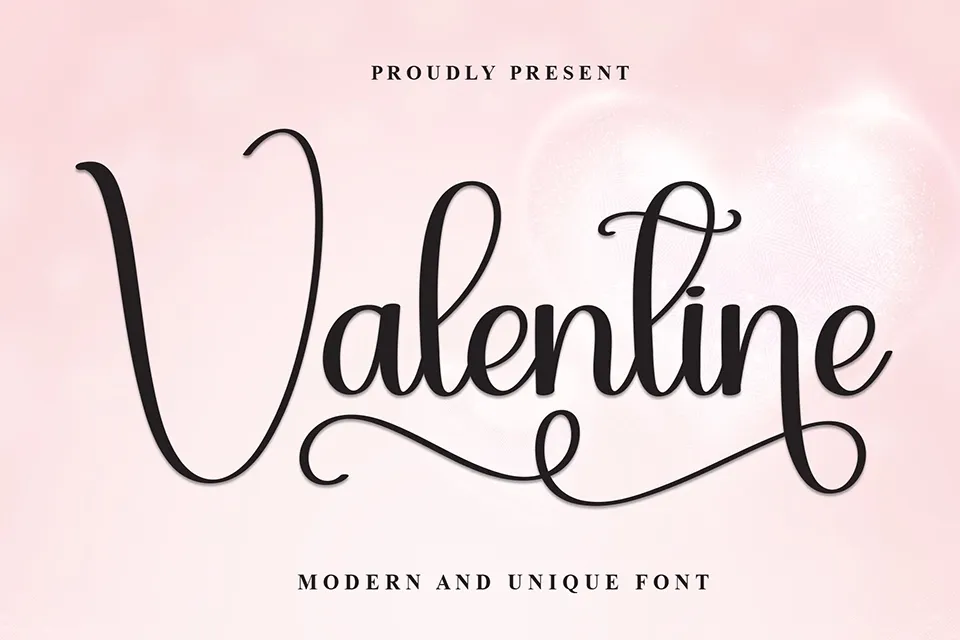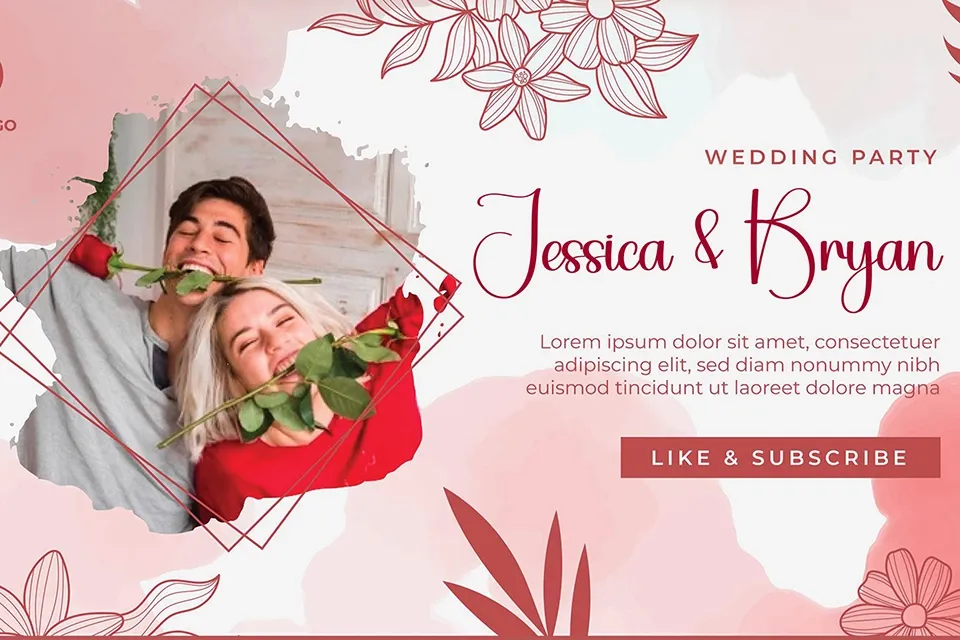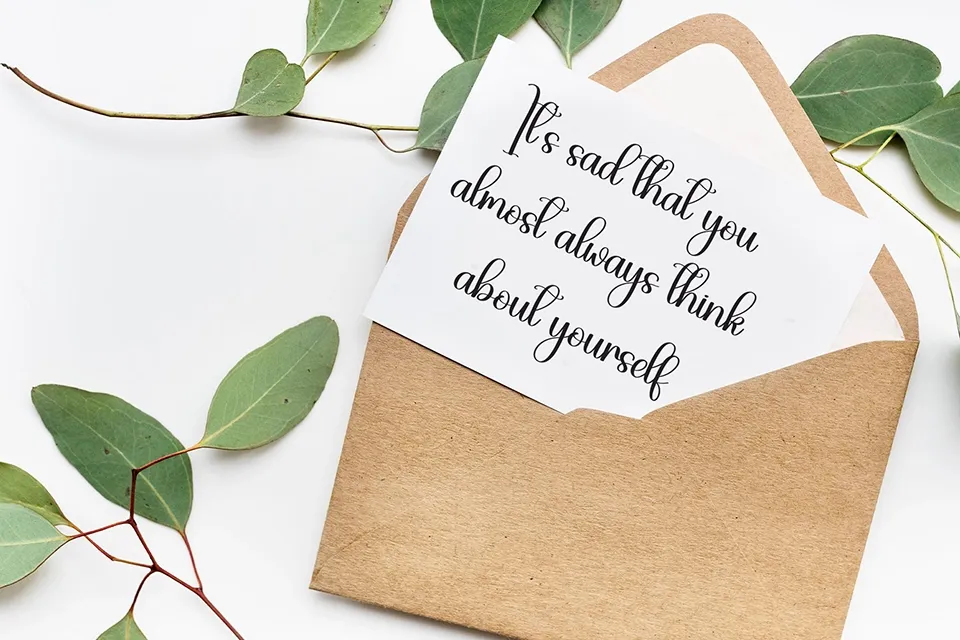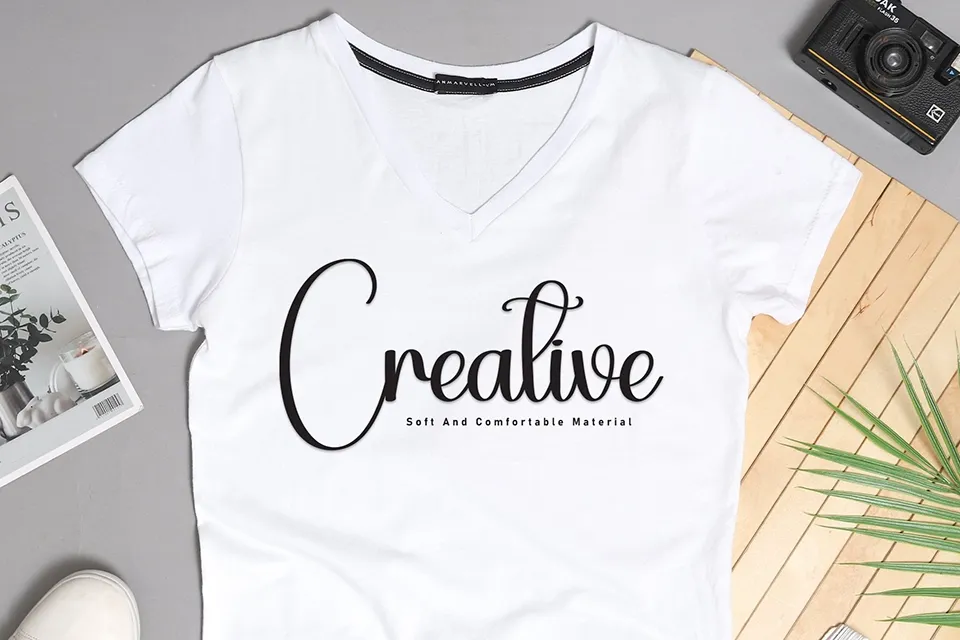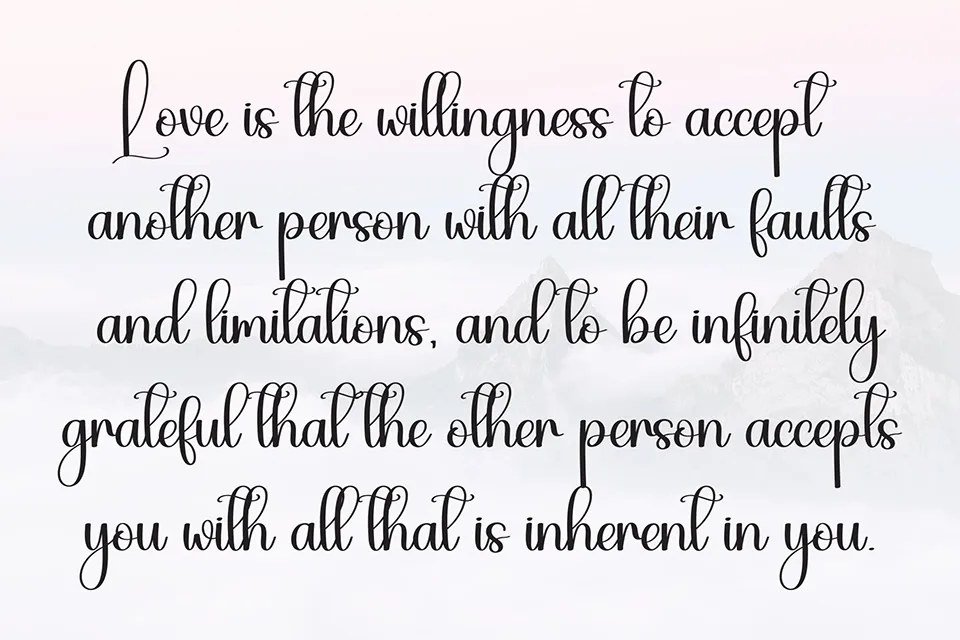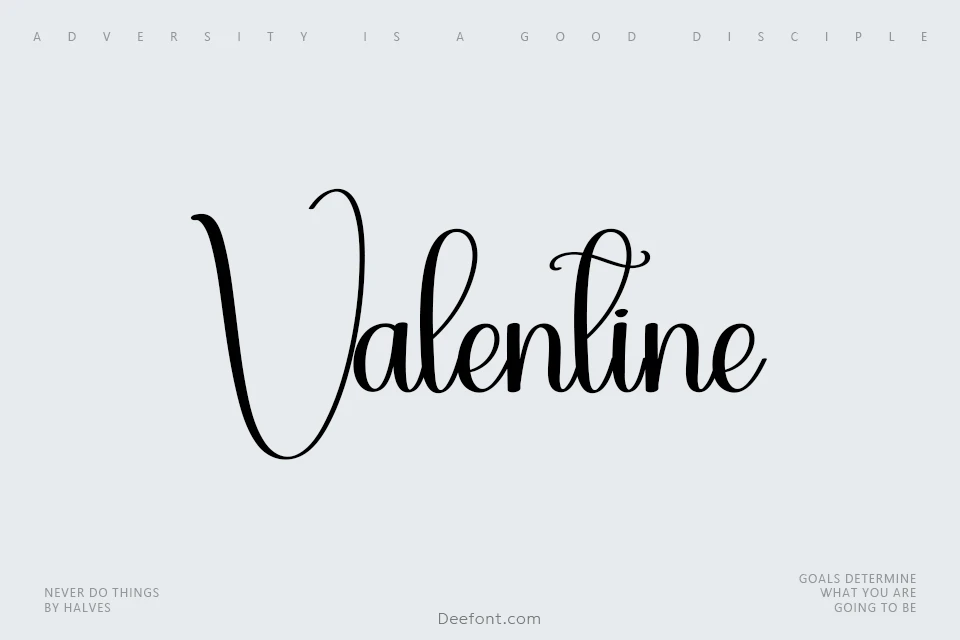
Valentine Calligraphy Font
Valentine Calligraphy Font is a flowing handwritten script that marries grace with expressiveness. Each meticulously crafted character exudes an artful charm, making it perfect for romantic designs, invitations, and creative projects that require a modern yet elegant touch.